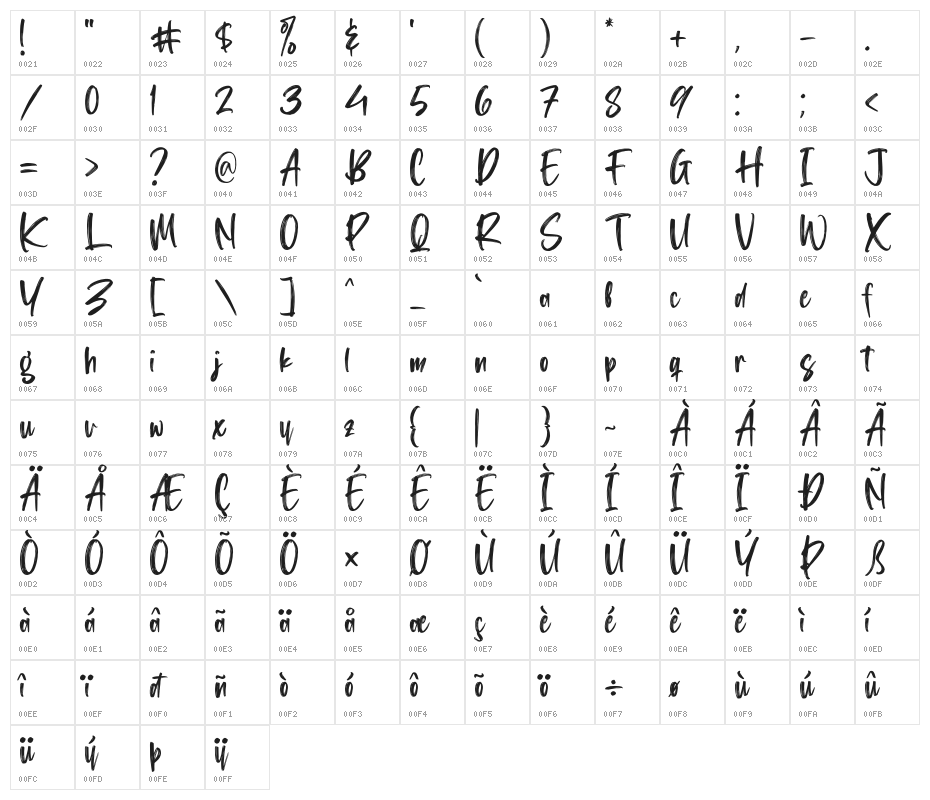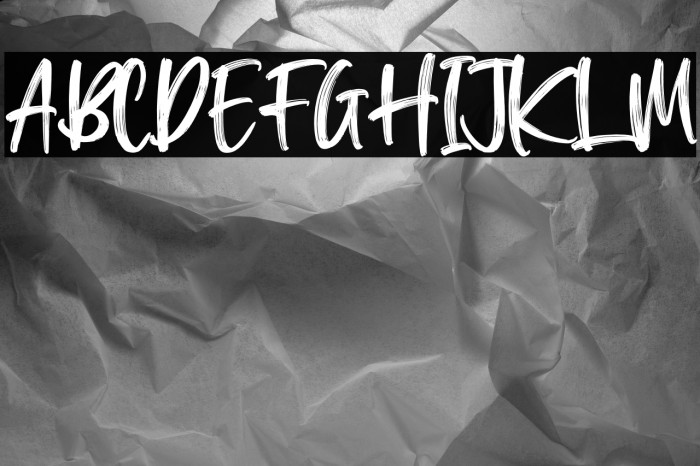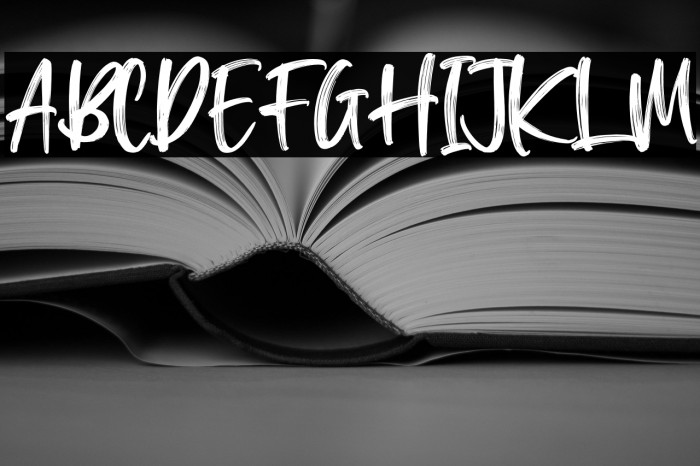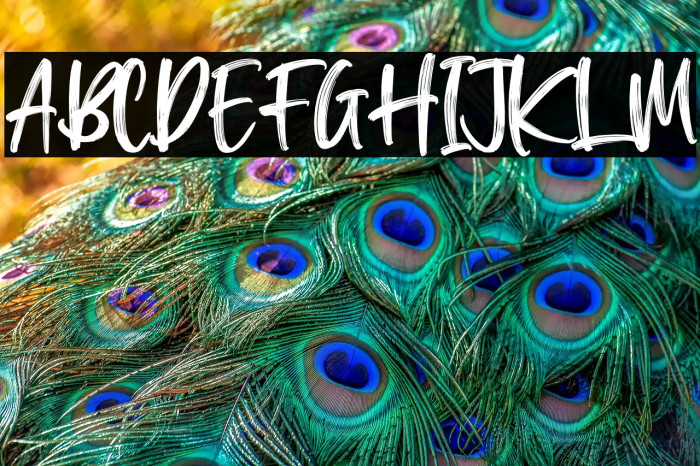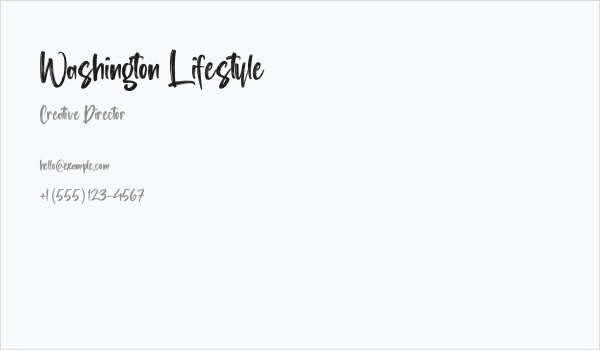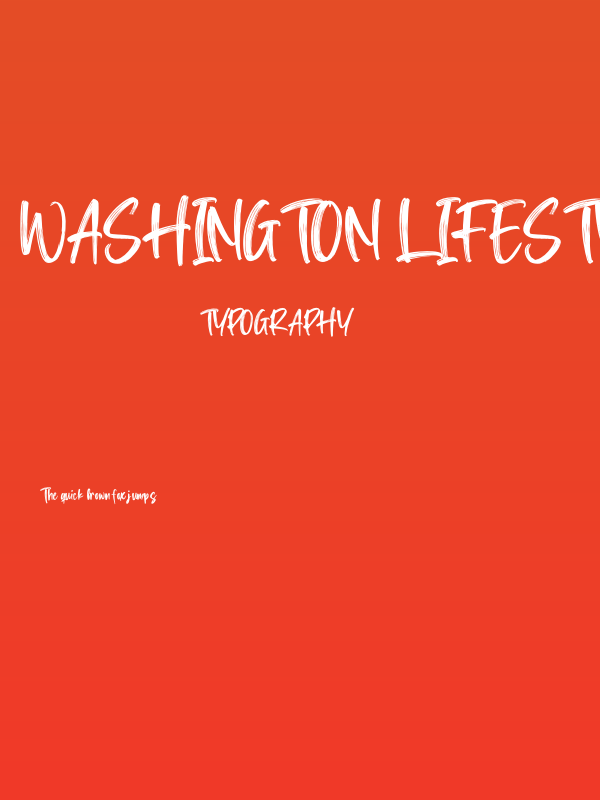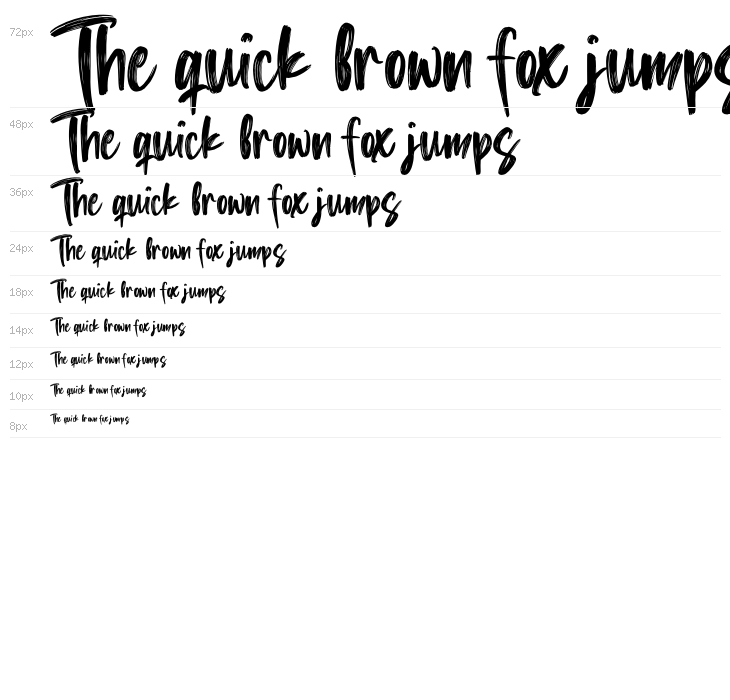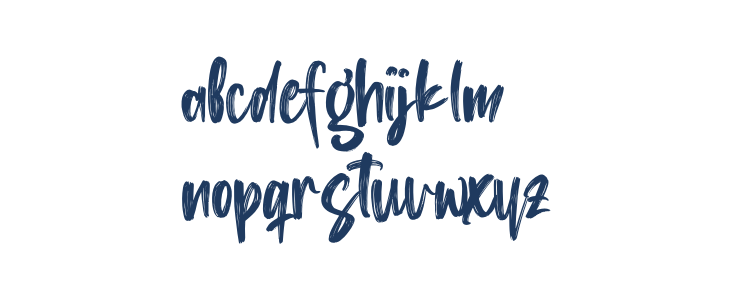
Washington Lifestyle Font
Washington Lifestyle Description
This font exudes a bold and energetic style, characterized by its brush-like strokes and dynamic flow. The letters have a hand-painted appearance, with varying thicknesses that add a sense of movement and spontaneity. The uppercase letters are tall and commanding, while the lowercase letters maintain a consistent, lively rhythm. Numbers and special characters follow the same expressive style, making them stand out with their artistic flair. This font is perfect for projects that require a personal touch or a creative, informal vibe.
| Proposed Projects | Ideal for branding, posters, social media graphics, and creative projects that need a personal, artistic touch. |